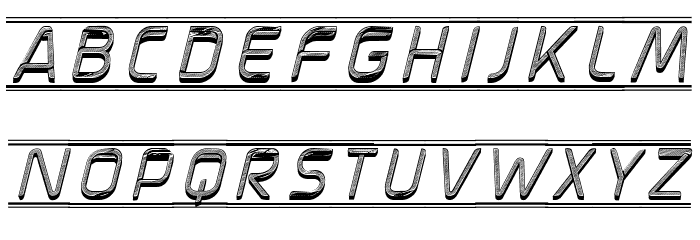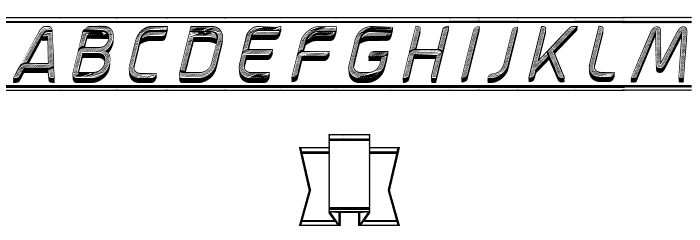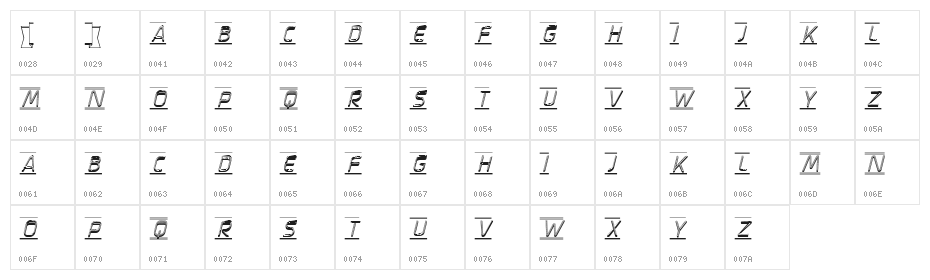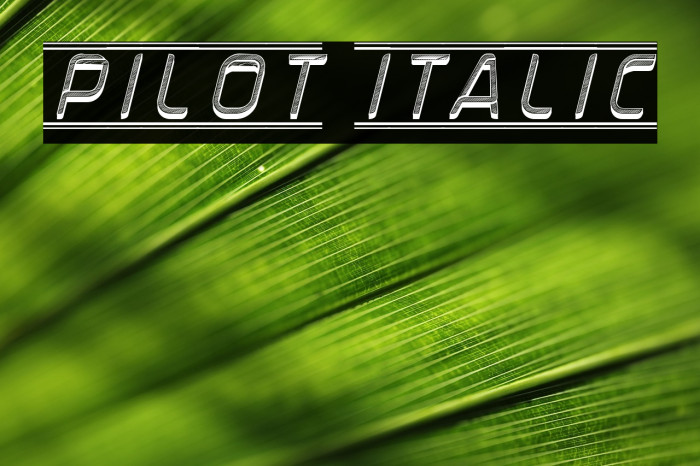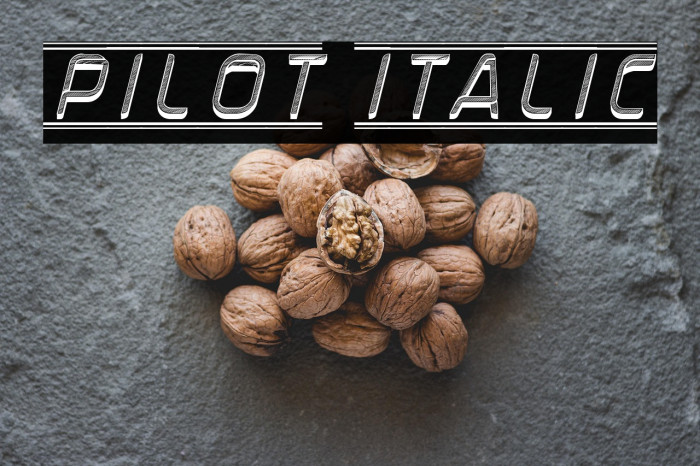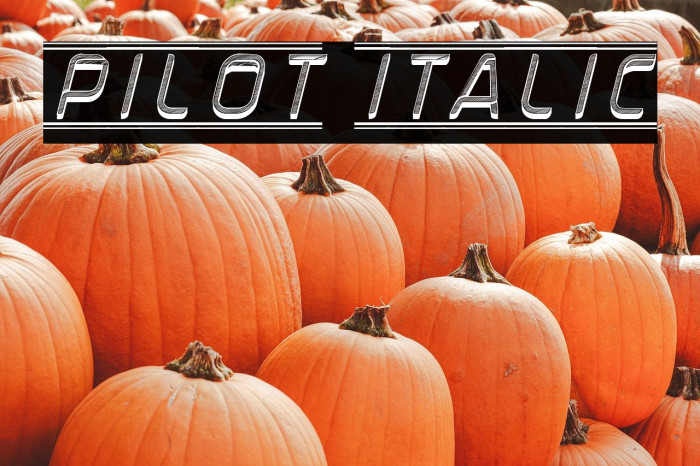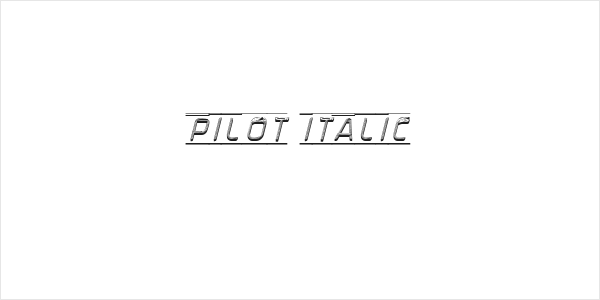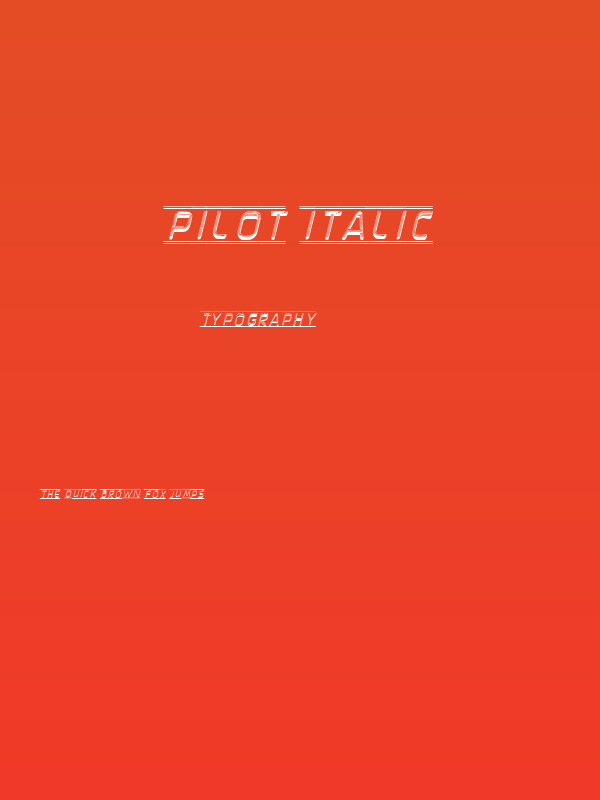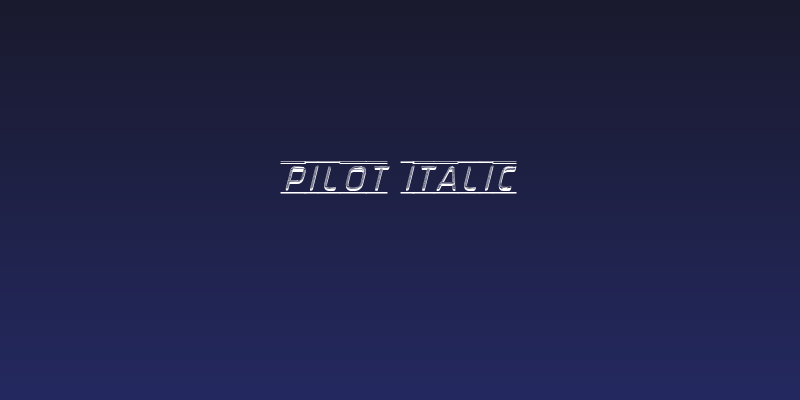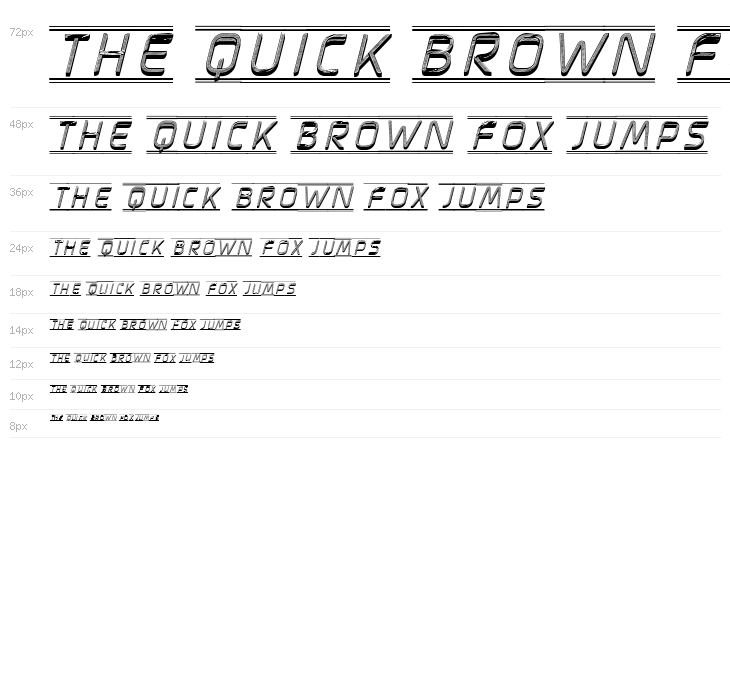
Pilot Italic Font
This font exhibits a sleek, italicized style with a modern and dynamic appearance. The characters are slightly slanted, giving a sense of motion and fluidity. The strokes are consistent in thickness, providing a uniform look across all letters. The design is clean and minimalistic, with a slight futuristic touch. The uppercase letters are bold and prominent, while the lowercase letters maintain the same slant and style, ensuring readability and coherence. The numbers and special characters are designed to match the overall aesthetic, making them suitable for various applications.
A sleek, italicized font with a modern and dynamic style.
- Font: Pilot Italic
- Proposed Projects: Ideal for branding, advertising, and modern design projects that require a sense of motion and elegance.
- Category: Sans-Serif
- Use Case: Headlines, Logos, Branding